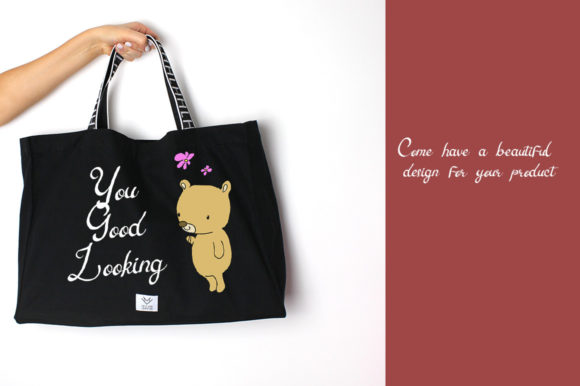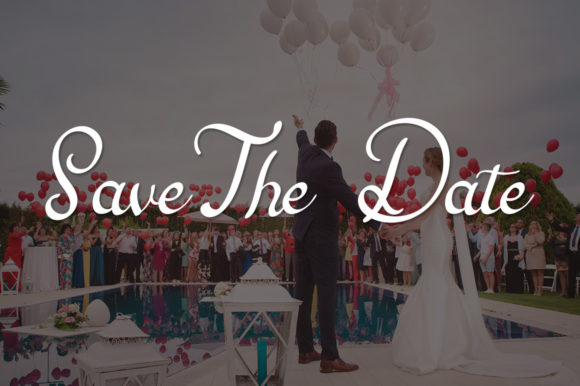
December Signature Font
db-ku.com - Script & Handwritten -- December Signature is a beautiful and sweet script font. It is fresh, clean, and elegant. This font will look amazing in a great amount of projects, both formal and informal.